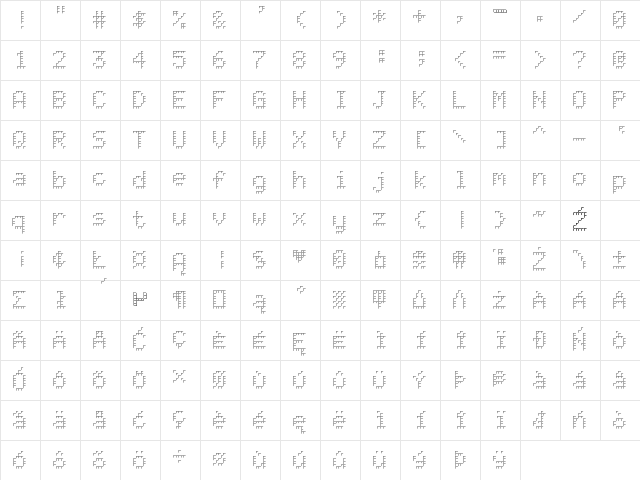
Complete EFN Mobile Albinos Regular glyph index. Displaying only characters natively supported by EFN Mobile Albinos Regular font.
EFN Mobile Albinos is a composed and adaptable typeface that performs quietly and consistently across a wide range of design contexts.